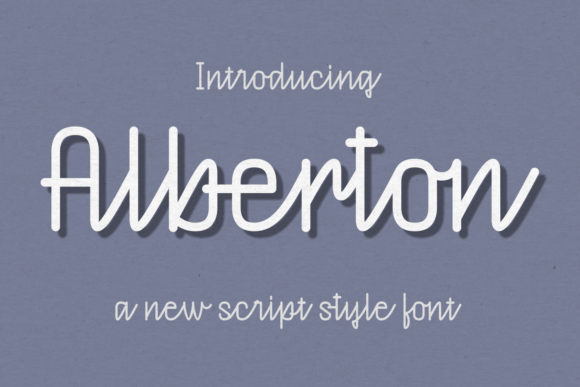
Introducing Alberton Font: Elevate Your Design with Elegance and Sophistication
In the world of typography, fonts play a crucial role in conveying messages, expressing emotions, and creating lasting impressions. For designers, crafters, and anyone looking to add a touch of elegance to their projects, Alberton Font is a game-changer. This unique and elegant script-style font is designed to make your designs stand out, whether you’re working on branding, logos, quotes, personal branding, websites, books, cards, or more.
The Characteristics of Alberton Font
Alberton Font boasts a distinctive script-style design that exudes sophistication and modernity. Its elegant strokes and fluid connections make it perfect for creating visually appealing headlines, titles, and quotes. The font’s unique characteristics include:
- Elegant Script Style: Alberton Font features a beautiful, cursive script style that adds a touch of sophistication to any design.
- Modern and Unique: Unlike traditional fonts, Alberton Font offers a fresh and modern look that’s sure to grab attention.
- Versatile: This font is incredibly versatile and can be used for a wide range of design projects, from branding and logos to websites and books.
Why Choose Alberton Font?
With so many fonts available, why should you choose Alberton Font for your design projects? Here are just a few compelling reasons:
- Perfect for Branding and Logos: Alberton Font’s unique and elegant design makes it an excellent choice for creating memorable brand identities and logos.
- Adds Sophistication to Quotes and Headlines: Whether you’re designing a quote, headline, or title, Alberton Font adds a touch of sophistication and elegance that elevates your design.
- Great for Personal Branding: If you’re looking to create a personal brand that stands out, Alberton Font is an excellent choice for creating consistent and recognizable visual elements.
- Web Design and Development: Alberton Font is also perfect for web design and development projects, adding a touch of elegance and sophistication to your website’s typography.
How to Use Alberton Font in Your Design Projects
Incorporating Alberton Font into your design projects is easy. Here are a few tips to get you started:
- Pair it with Other Fonts: Experiment with pairing Alberton Font with other fonts to create visually appealing contrast and hierarchy.
- Use it for Headlines and Titles: Alberton Font is perfect for creating eye-catching headlines and titles that grab attention.
- Add it to Your Brand Identity: Consider using Alberton Font as part of your brand identity to create a consistent and recognizable visual style.
Alberton Font is a unique and elegant script-style font that’s perfect for designers, crafters, and anyone looking to add a touch of sophistication to their design projects. With its modern and unique design, versatility, and ease of use, Alberton Font is an excellent addition to any design library. So why wait? Include Alberton Font in your library today and start creating stunning designs that elevate your brand and captivate your audience.
- Alberton Font is a unique and elegant script-style font.
- Perfect for branding, logos, quotes, personal branding, websites, books, cards, and more.
- Versatile and easy to use.
- Adds sophistication and elegance to design projects.